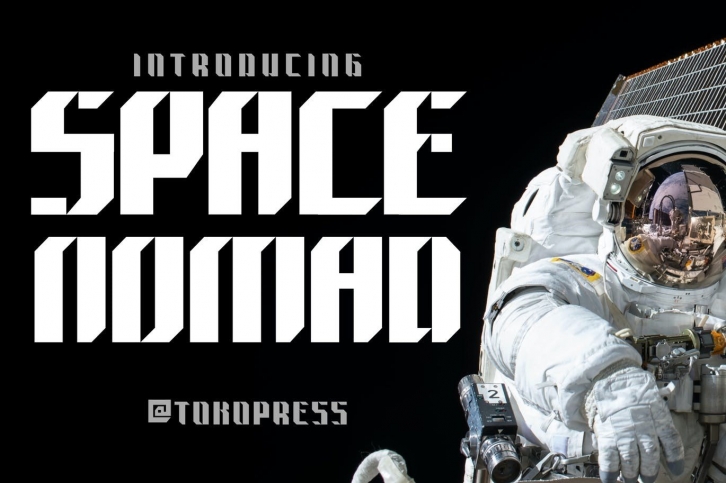
Space Nomad is a cool, bold and urban styled display font. No matter the topic, this font will be an incredible asset to your fonts’ library, as it has the potential to elevate any creation.Â